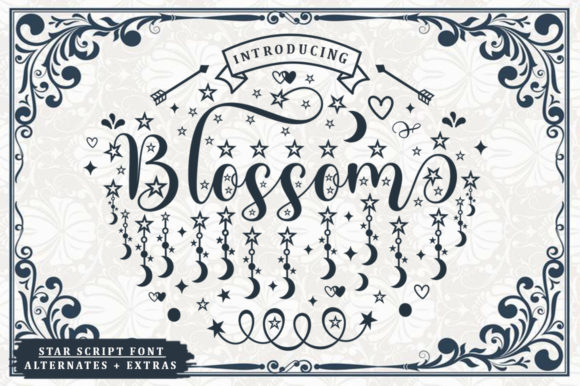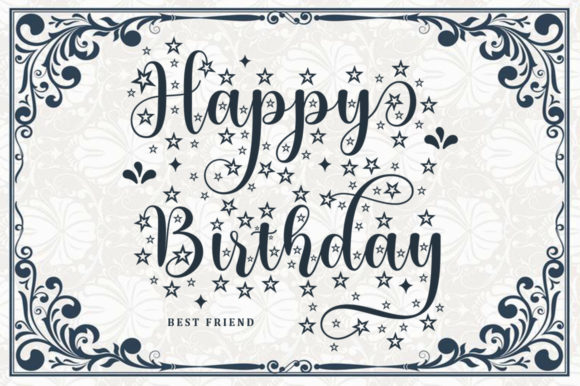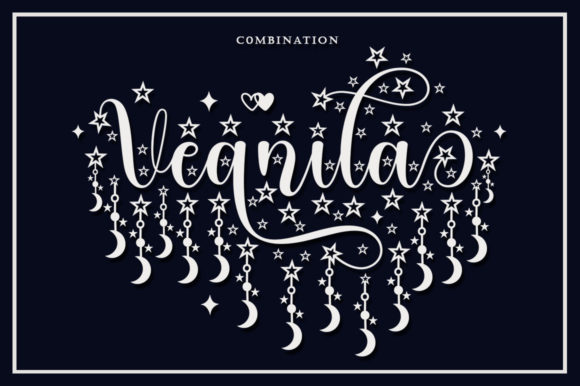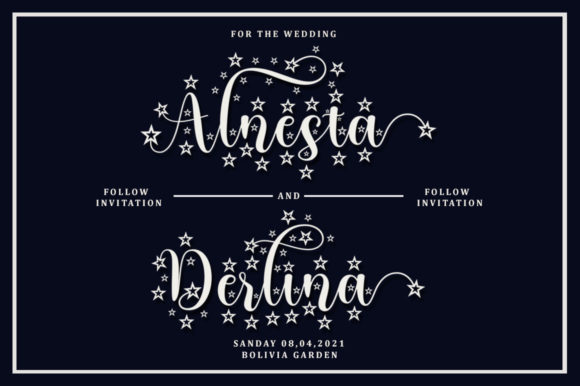
Blossom Font Font
About the Blossom Font Font
Presenting Blossom Font Font, a unique and stylish typeface that will make your work stand out. Blossom is a lovely and delicate script font that exudes elegance and class. It is neatly crafted and highly detailed. Blossom is PUA encoded which means you can access all of the amazing glyphs and ligatures with ease!
Blossom’s elegant, delicate nature makes it ideal for projects requiring a touch of refined sophistication. It works beautifully in wedding invitations, logos for luxury brands, or short, impactful headlines on high-end packaging. However, its intricacy makes it less suitable for body text or UI elements where readability is paramount; long stretches of Blossom can strain the eye.
Pairing Blossom with a clean sans-serif like Lato or a neutral serif such as Garamond provides a strong contrast and enhances readability when used together. For a more playful feel, consider pairing it with a rounded geometric sans-serif.
Blossom projects a sense of timeless elegance and understated luxury. Its detailed glyphs add a touch of personality without overwhelming the design.